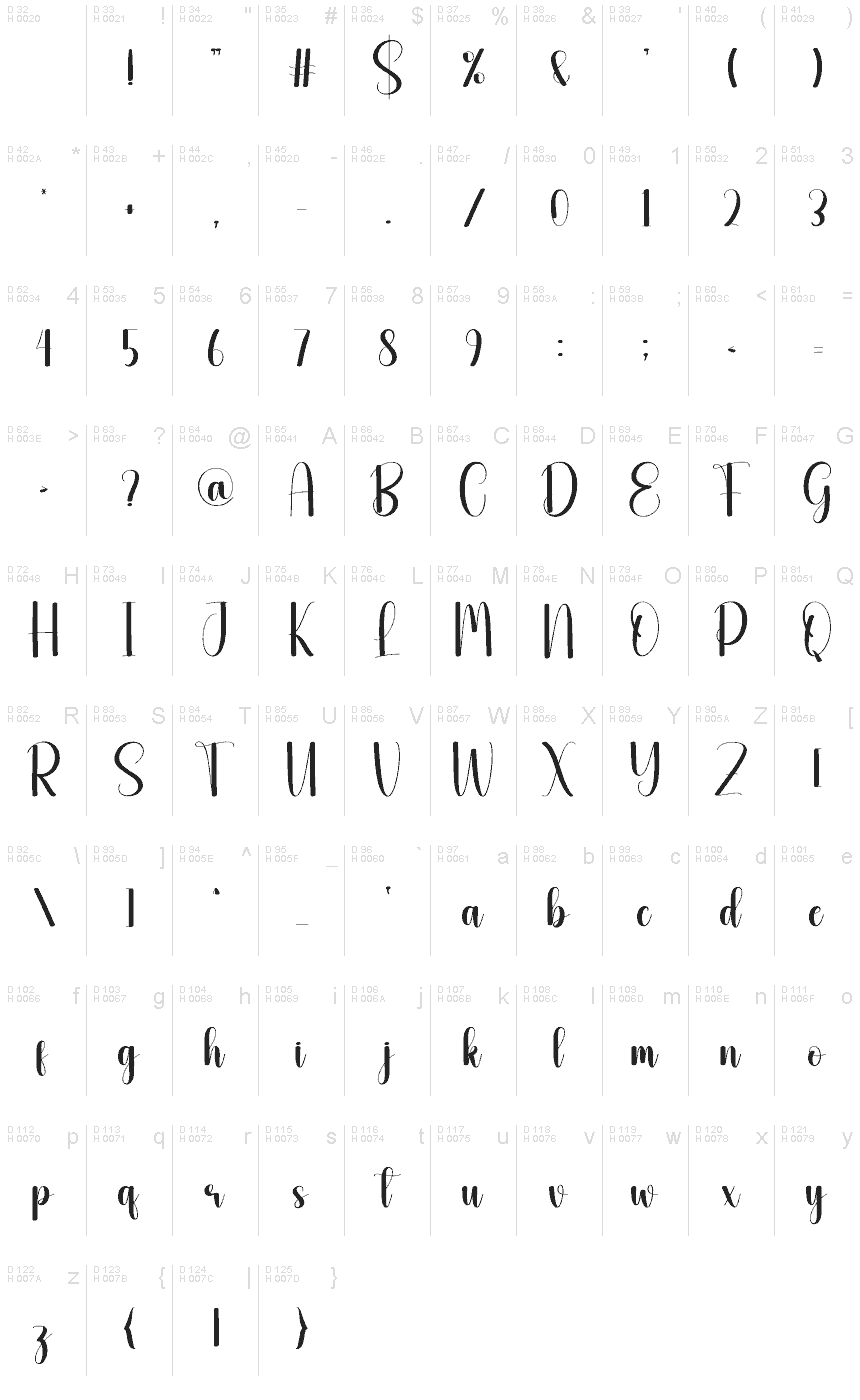
Sunbathe
Sunbathe font is a ready to use typeface by Andi Moz whose thin lines and fluid shapes mimic those of natural graffiti. Each alphanumeric symbol feels like it is hand-written by brush for a modern cursive look in full continuity from start to end. Perfect for designs intended to have a hip character, this free calligraphy font brings together effortless beauty and elegance.